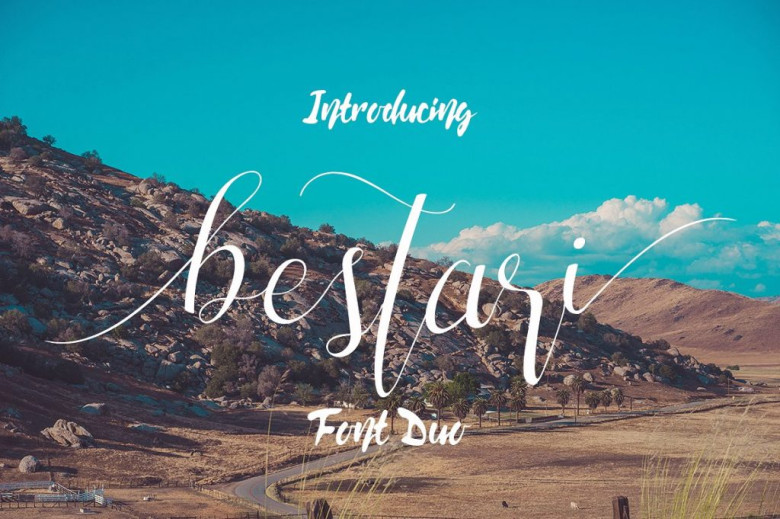
Bestari Script Font
Bestari is clean brush font and modern calligraphy, every single letters have been carefully crafted to make your text looks beautiful. Can be used for various purposes.such as headings, signature, logos, wedding invitation, t-shirt, letterhead, signage, lable, news, posters, badges etc.